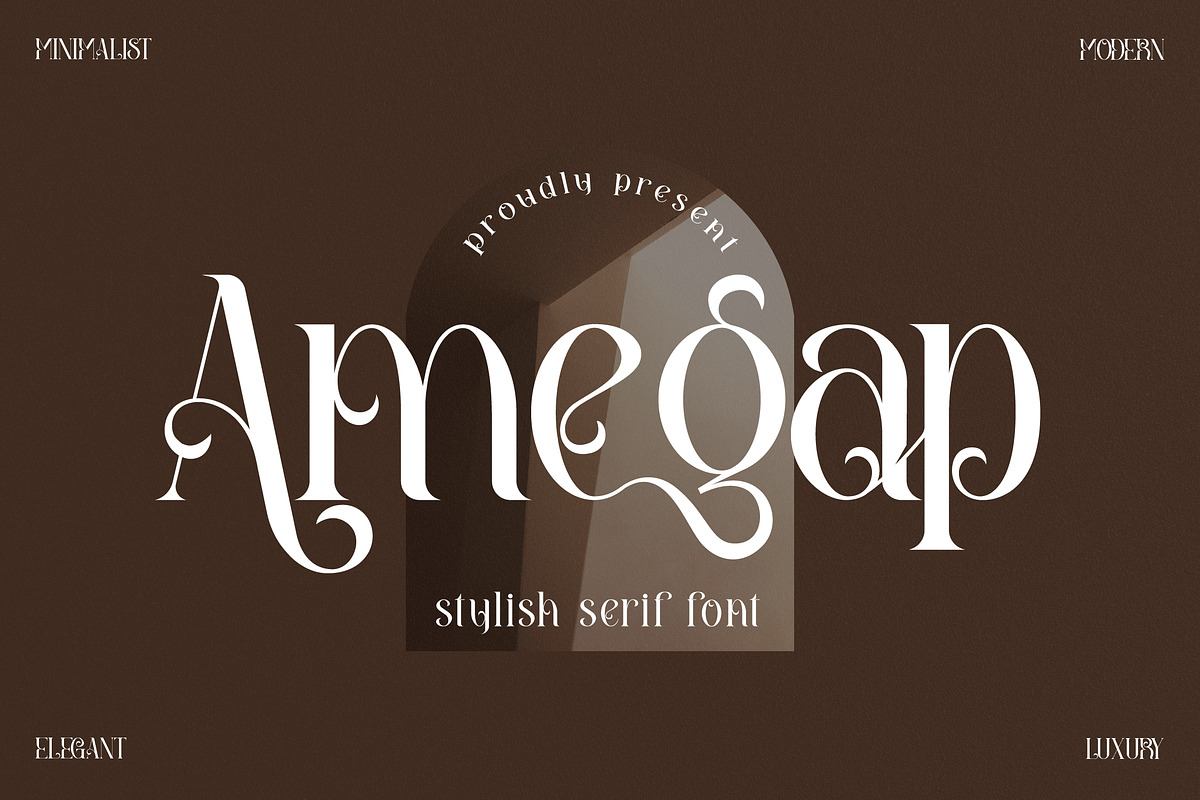
Amegap Stylish Serif Font Free Download
Amegap Stylish Serif Font Free Download is a sophisticated and modern serif typeface that blends classic elegance with a contemporary twist. With its refined serifs, sleek lines, and stylish design, this font is perfect for high-end branding, editorial layouts, logos, invitations, and any project that requires a touch of class.
Its timeless beauty ensures that Amegap Stylish Serif Font Free Download works beautifully for both formal and creative uses, making it an excellent choice for upscale events, luxury branding, and elegant marketing materials. The font’s versatility shines in both print and digital formats, delivering a professional and stylish touch to your designs.